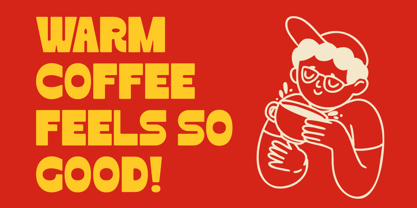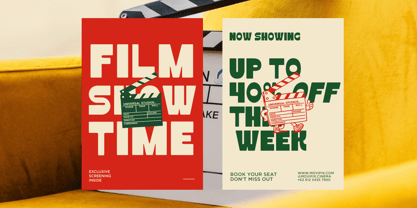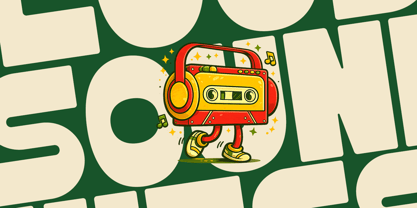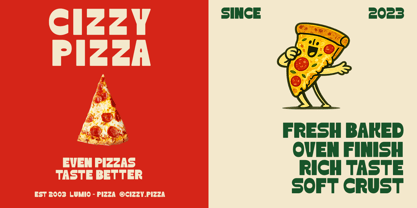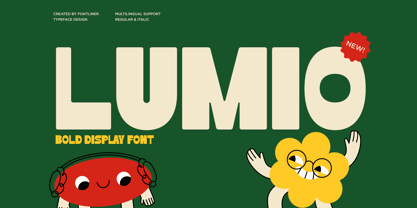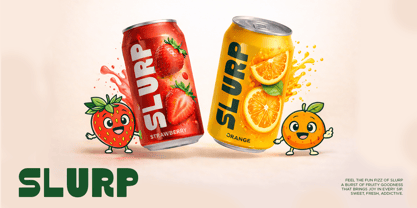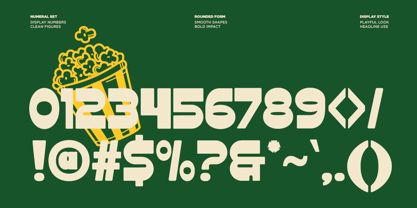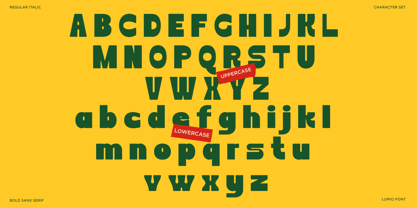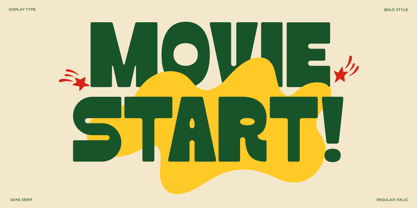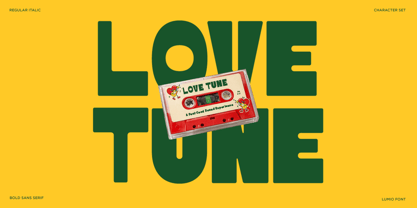
Lumio
von Font Liner
Die Schriftfamilie Lumio wurde von Ghina Luthfiarieska entworfen und von Font Liner veröffentlicht. Lumio enthält 2 Stile und Familienpaketoptionen. Mehr über diese Familie
Lumio is a bold chunky display font designed to make every headline pop with confidence. Featuring chunky geometric letterforms, rounded edges, and a friendly personality, this typeface is perfect for eye-catching branding, posters, packaging, food labels, children's products, social media graphics, and editorial layouts.
Its strong visual impact and cheerful character make it an excellent choice for creative projects that need a fun yet professional appearance. Whether you're designing a restaurant menu, snack packaging, event poster, YouTube thumbnail, advertising campaign, logo, or merchandise, Lumio delivers bold readability and memorable style.
Designer: Ghina Luthfiarieska
Foundry: Font Liner